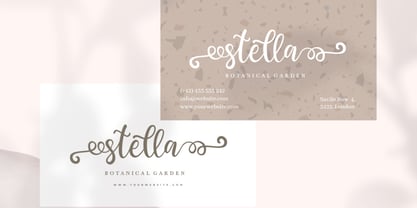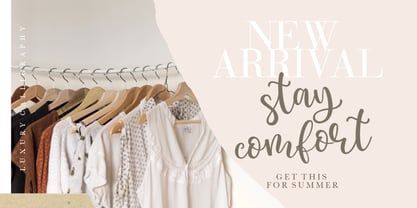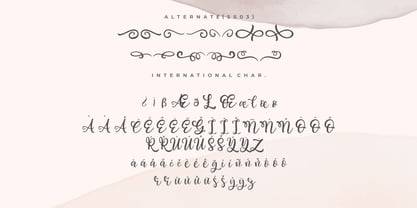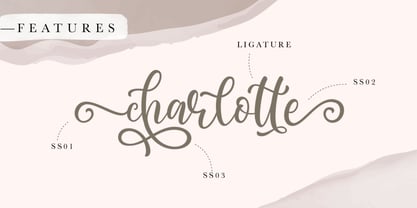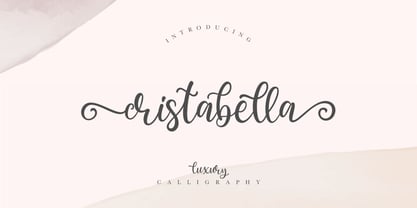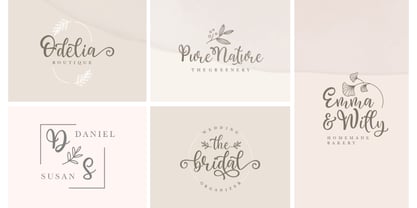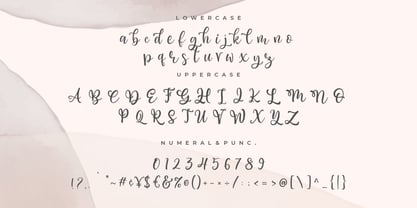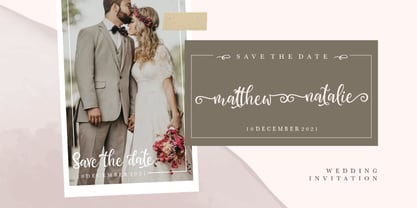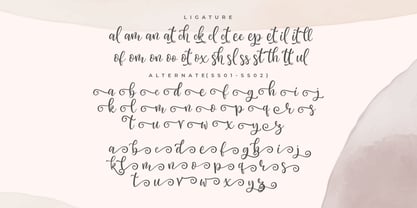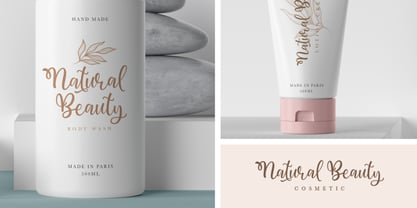
Cristabella
von Creatype Studio
Die Schriftfamilie Cristabella wurde von Rian Rahardi entworfen und von Creatype Studio veröffentlicht. Cristabella enthält 1 Stile. Mehr über diese Familie
Cristabella is an elegant, flowing calligraphy font designed to bring a luxurious and romantic feel to any design. Its smooth swashes and hand-lettered style exude warmth and sophistication, perfect for emotional and high-end visual storytelling. Ideal for Instagram brands, wedding invitations, boutique fashion labels, lifestyle blogs, feminine products, and premium packaging that need a personal and graceful aesthetic.